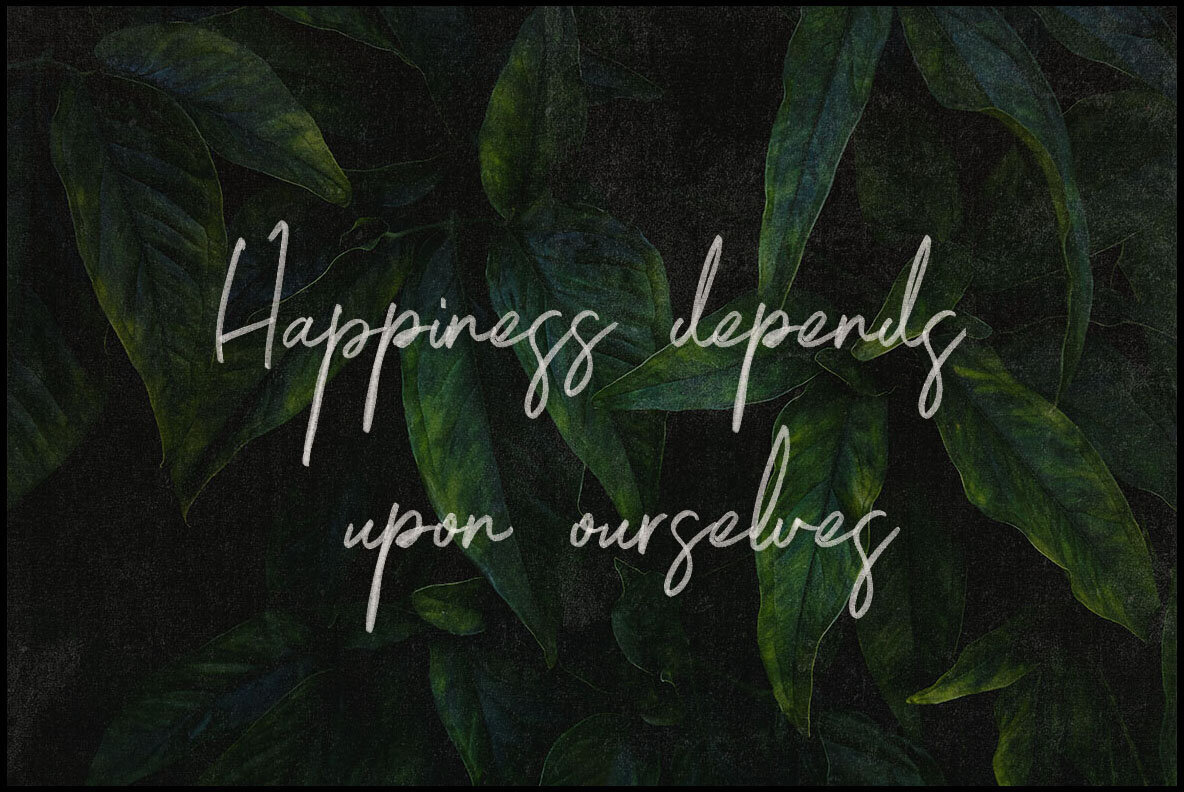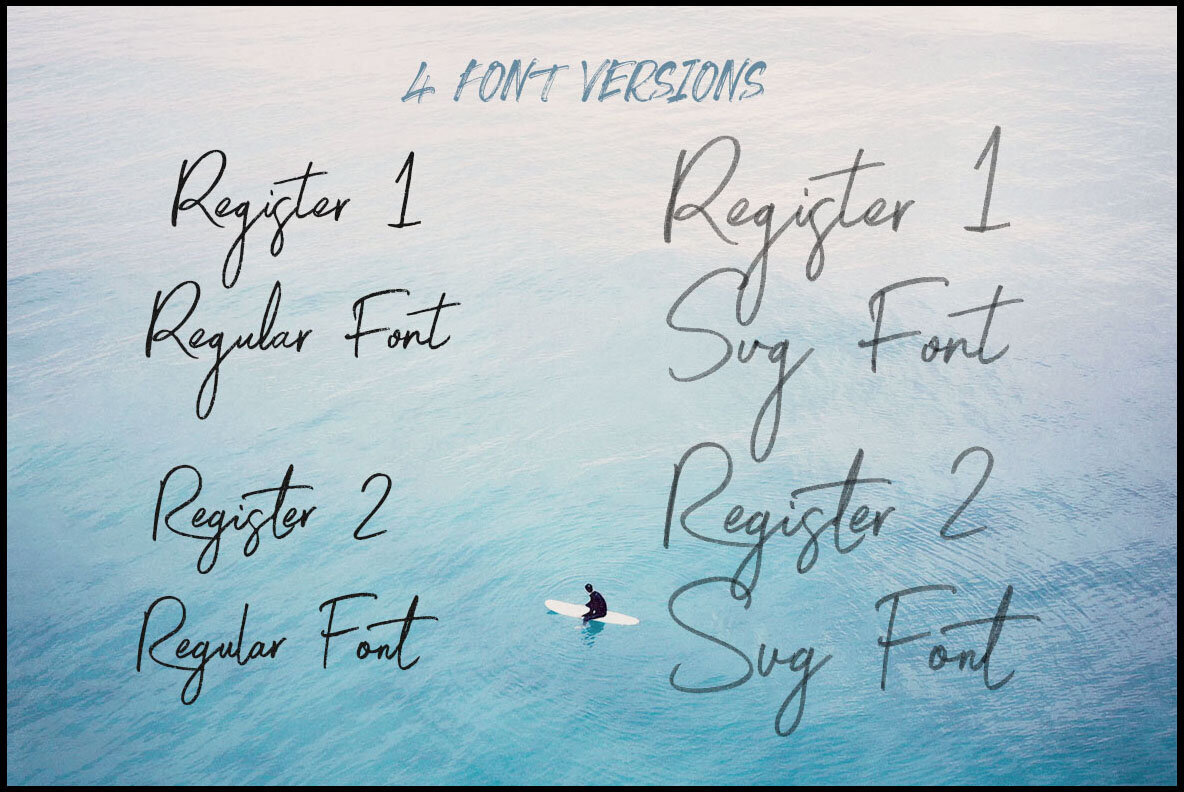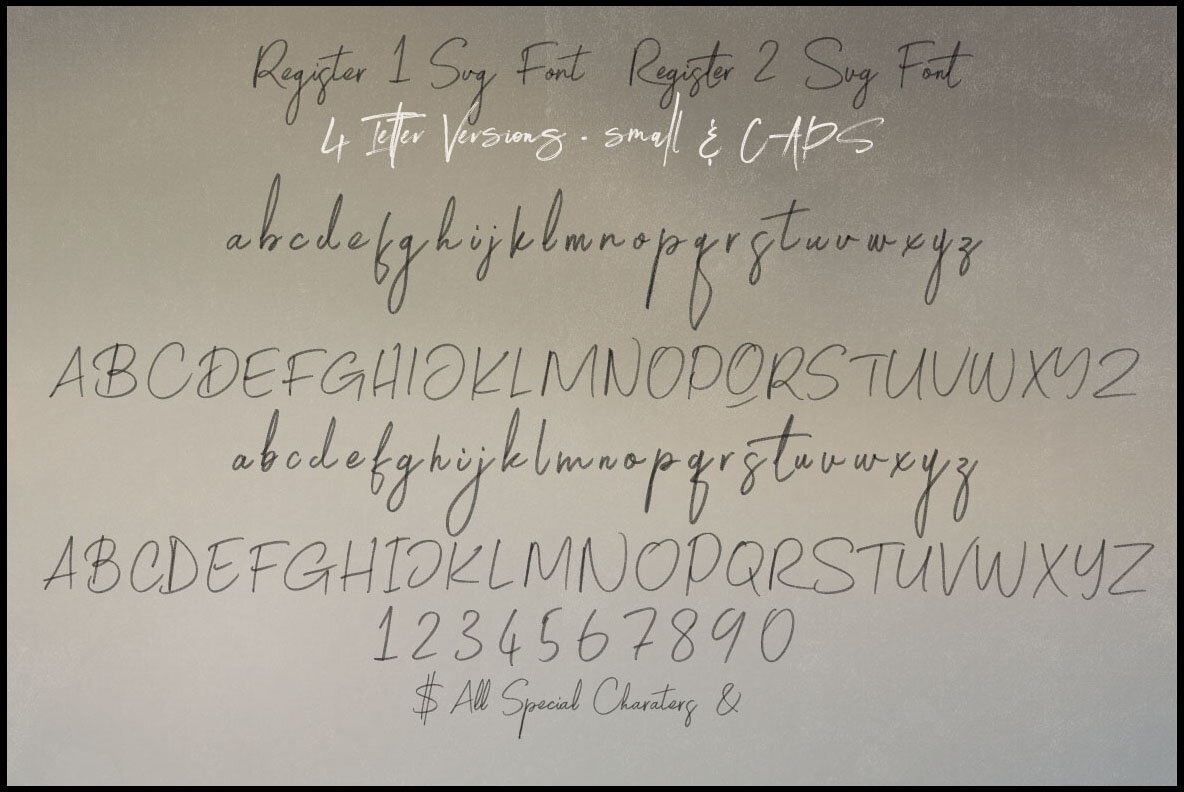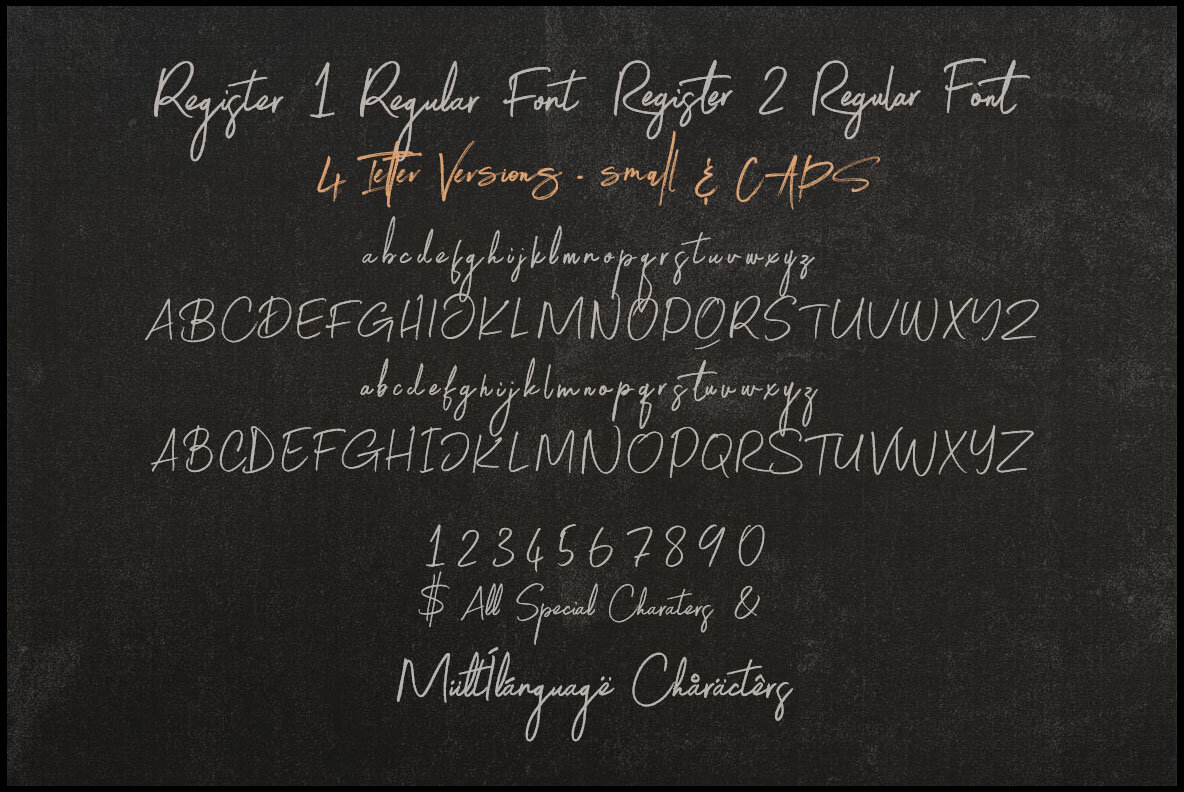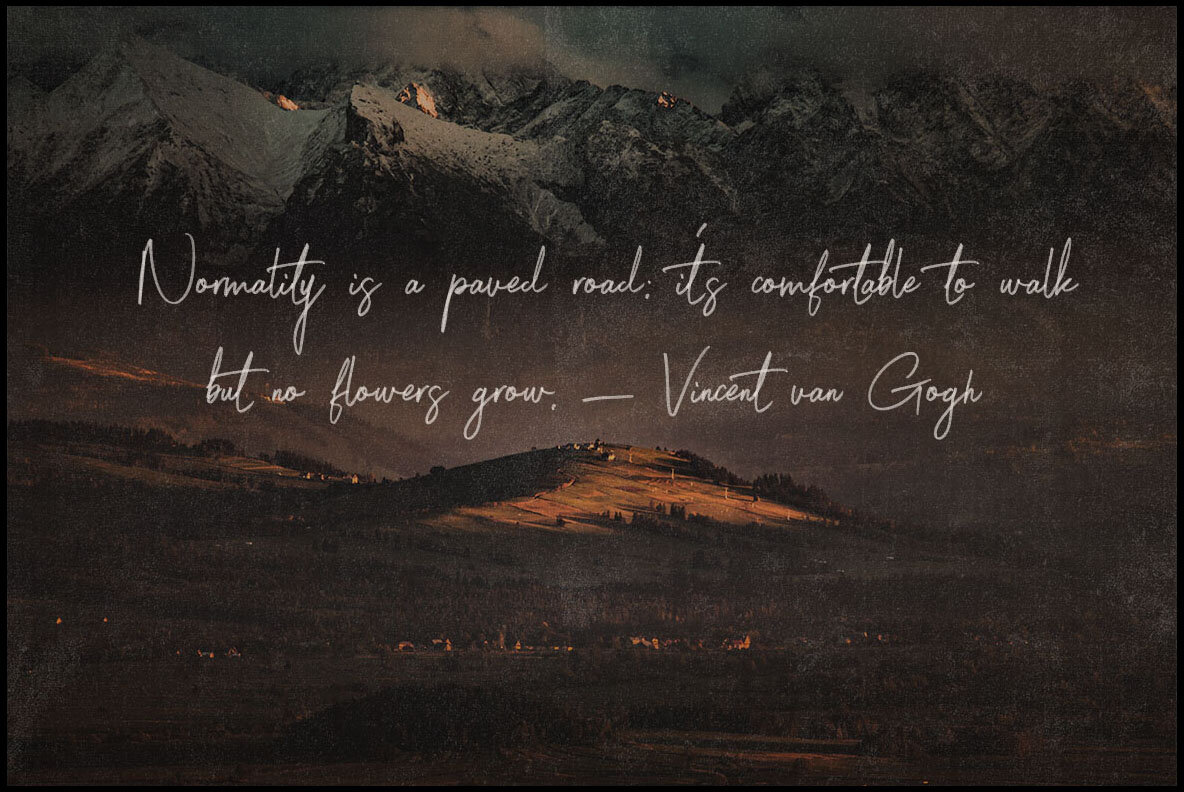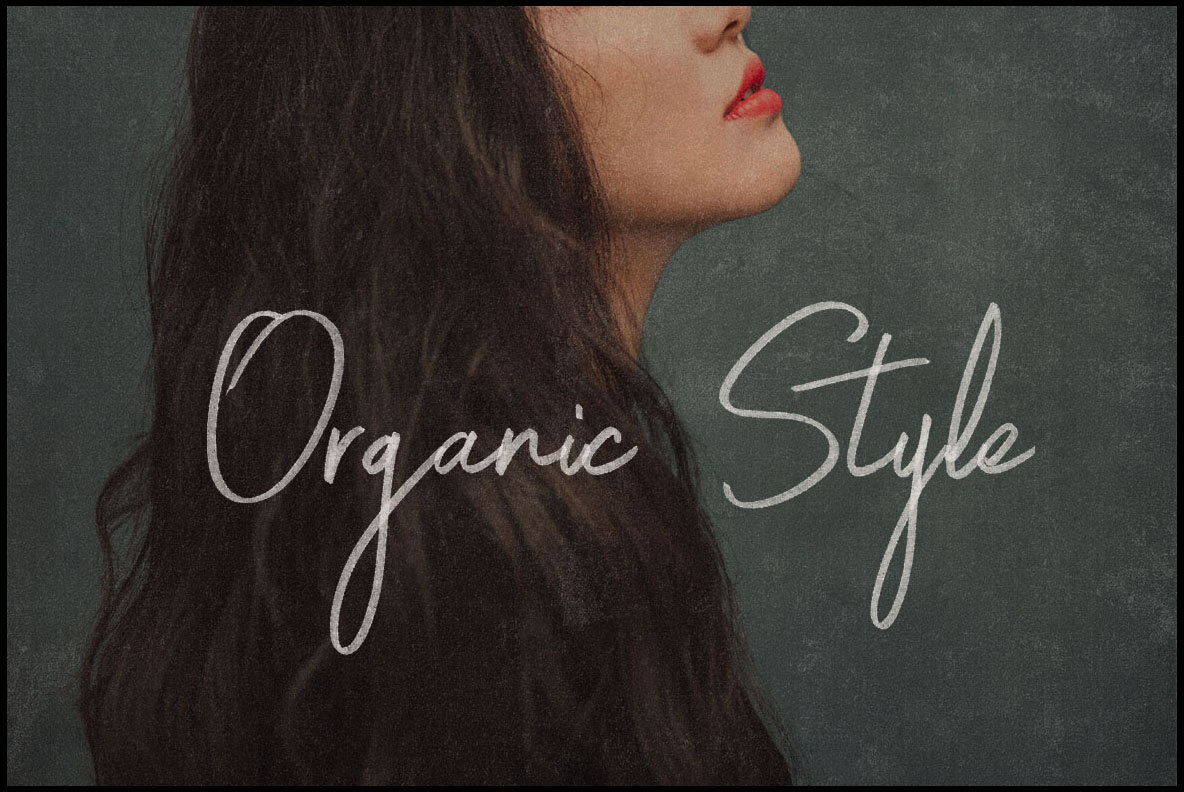
Register SVG Font
Introducing Register SVG, a marker or grunge-style script display font that is ideal for your new creative projects. This font is perfect for grunge or artistic designs needing a distinct and expressive touch.Register SVG: Grunge Style Script Font by Peter Olexa